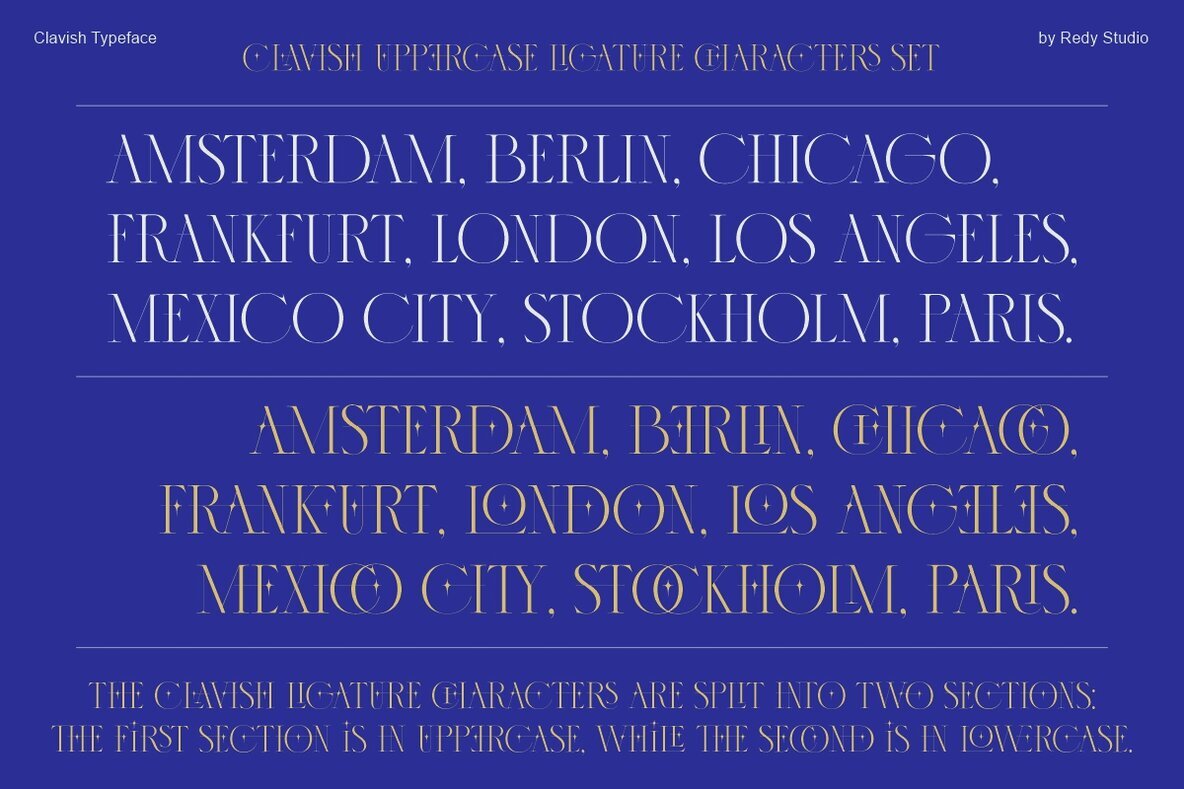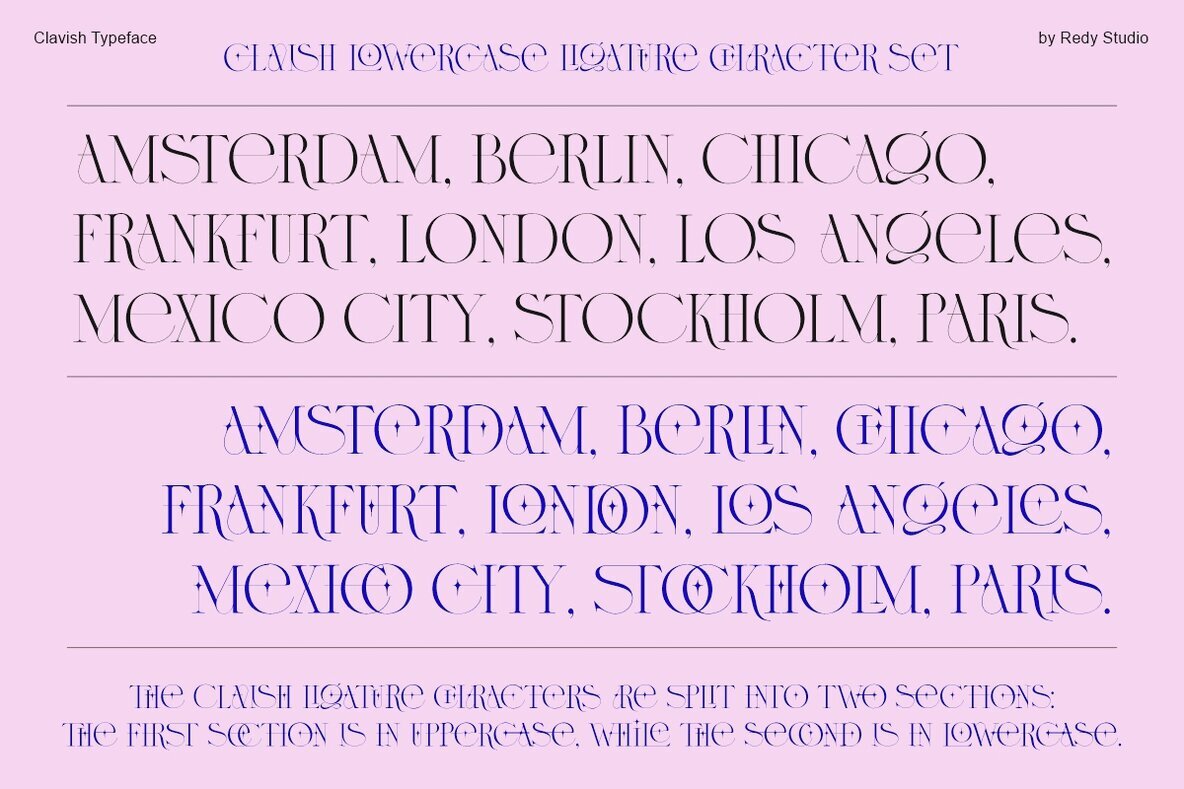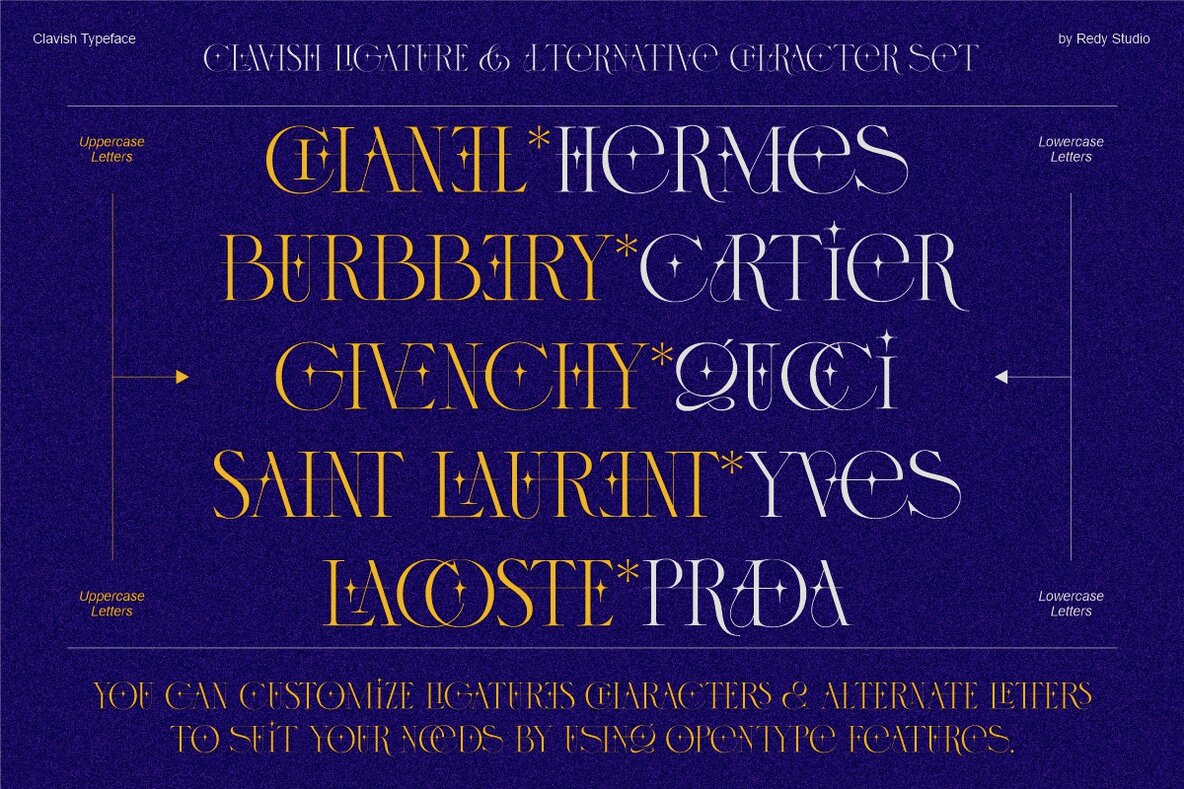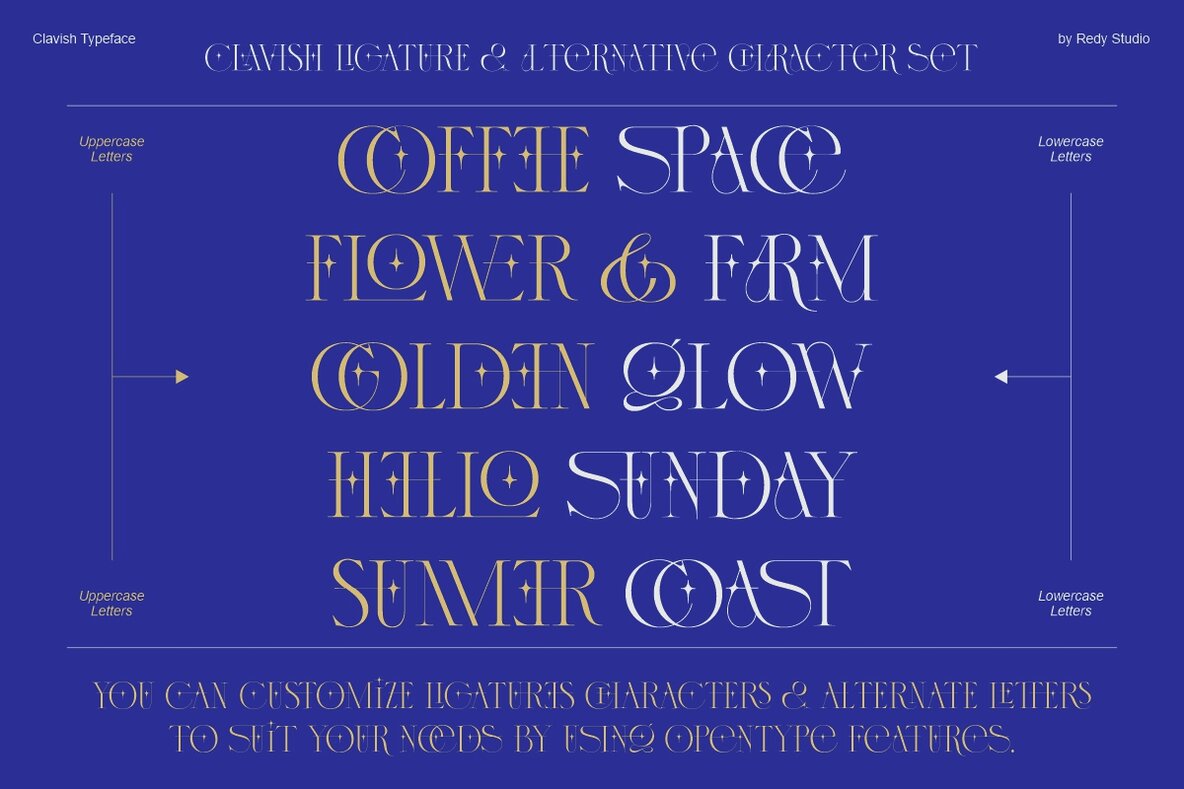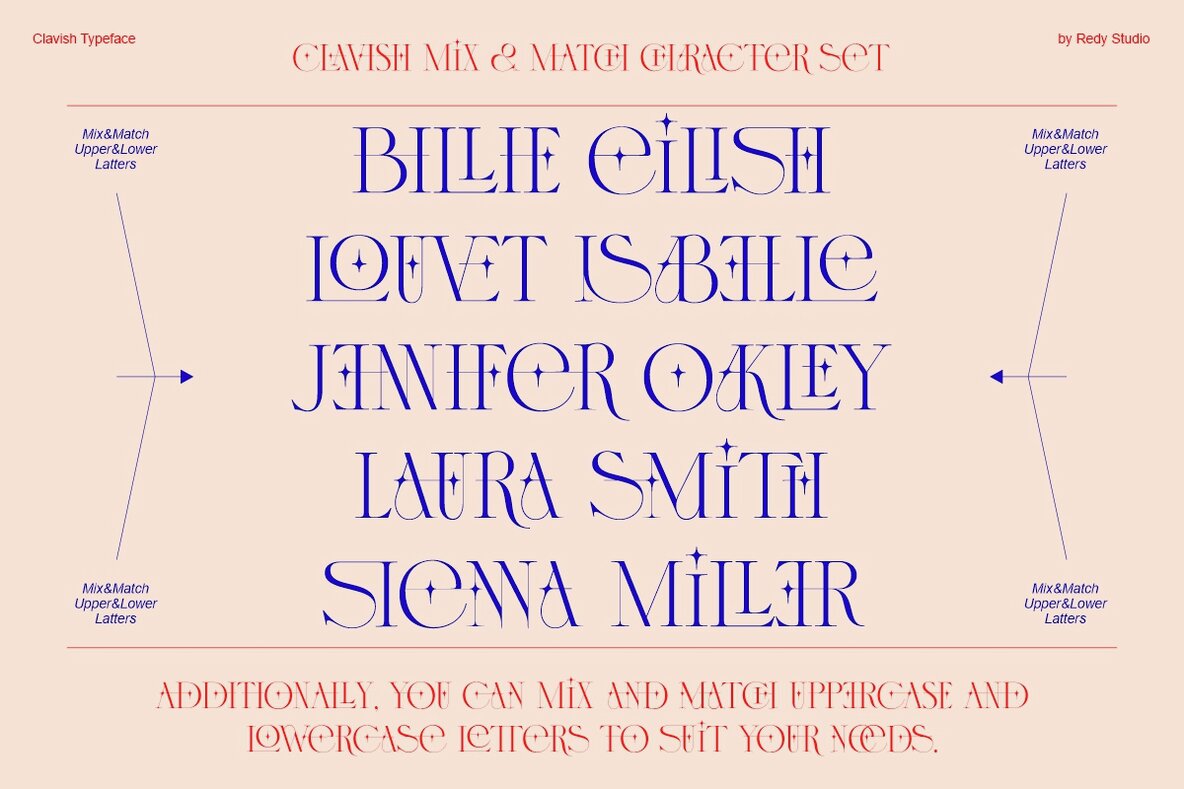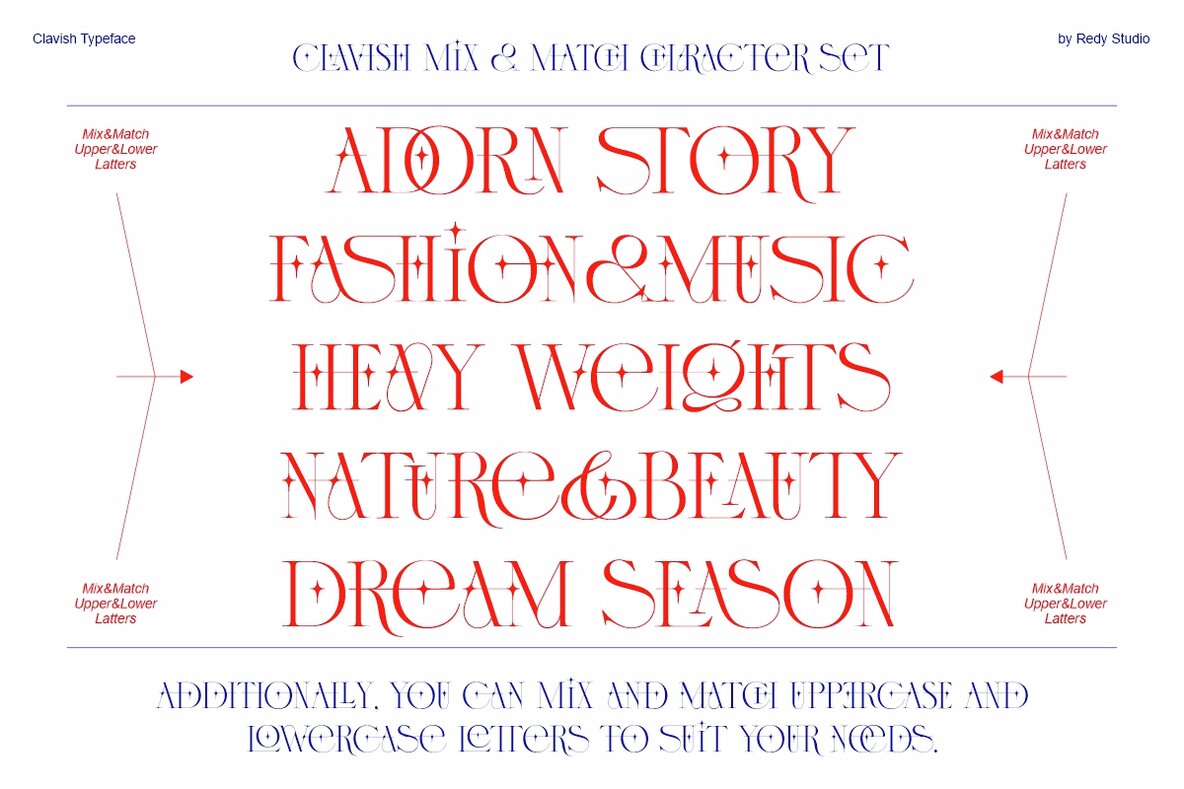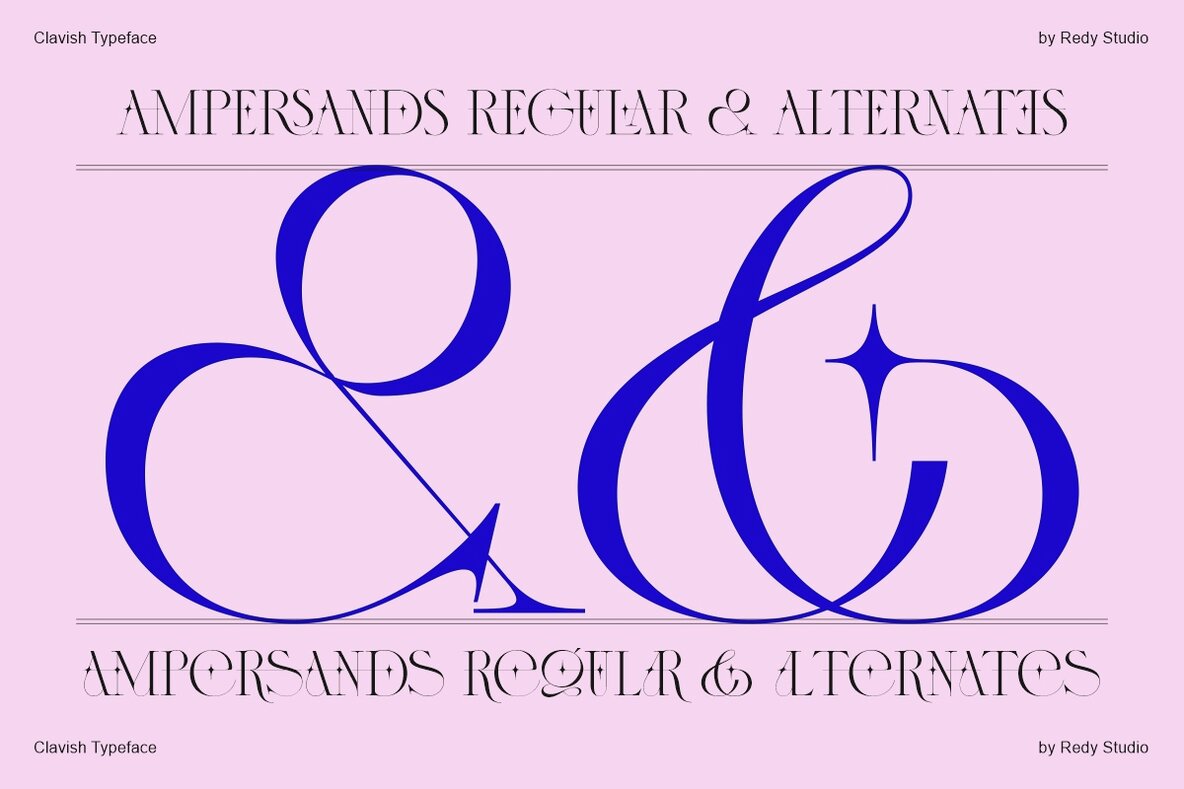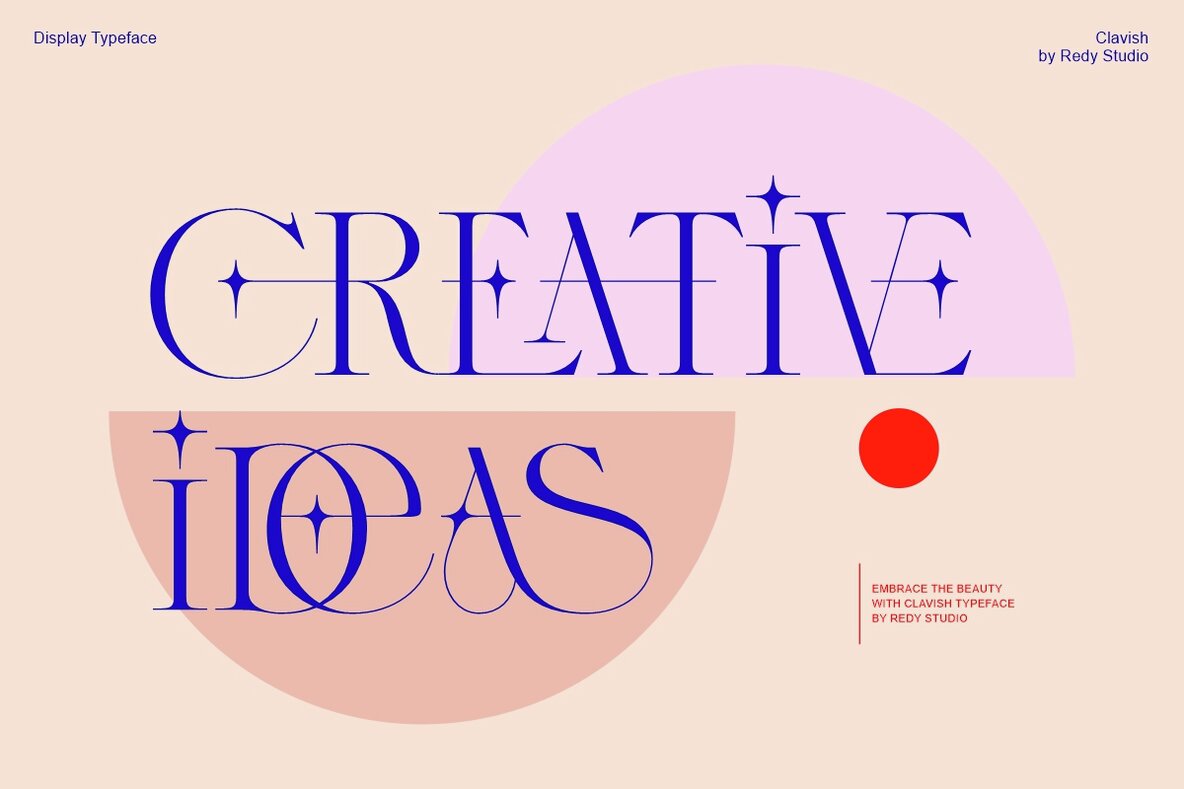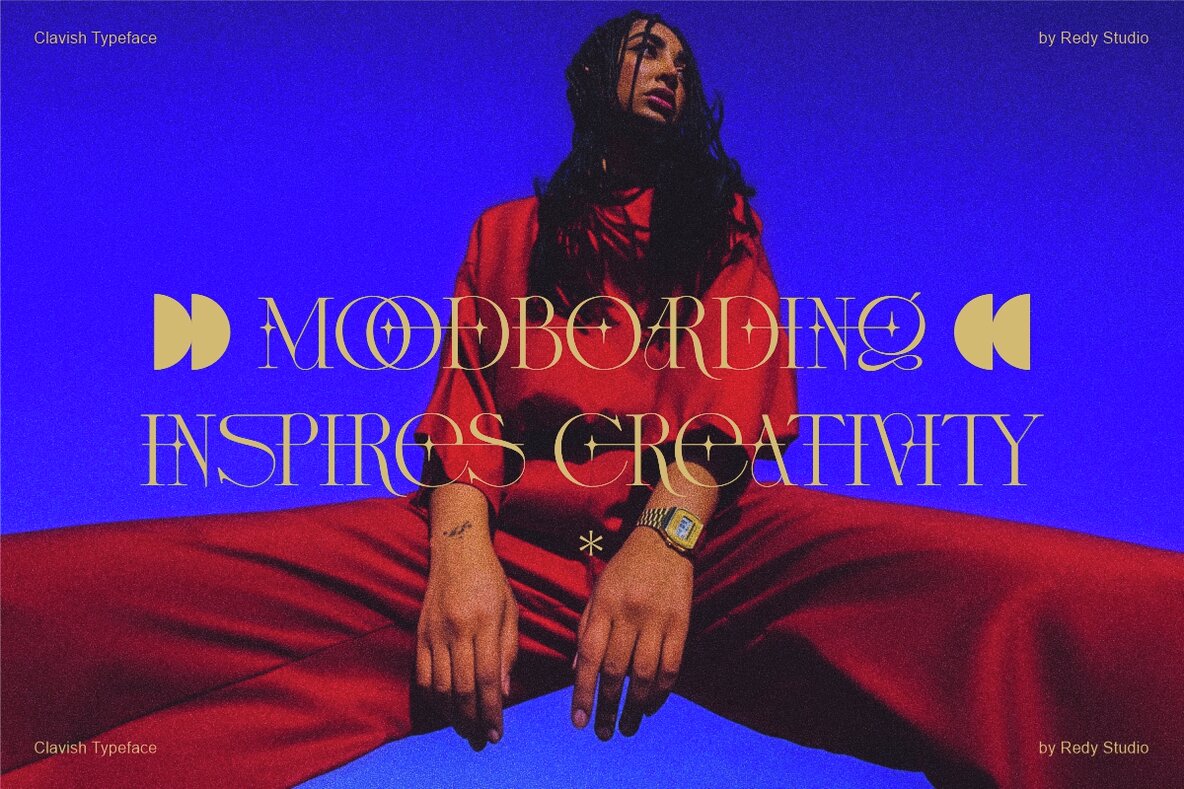
Clavish Font
Clavish Regular
Embrace the beauty with Clavish Display Typeface comes with alternate glyphs & 400+ Unique Ligatures. Clavish ligature characters are divided into two parts: the first part uses capital letters, while the second part uses lowercase letters. You can also customize ligature characters & alternate letters according to your needs by using the opentype feature. By adjusting the letter spacing, you can achieve a refined and elegant typography style, perfect for various design needs. The combination of uppercase and lowercase ligatures, along with the 400+ Ligature options provided by the OpenType feature, ensures that Clavish is versatile enough for various design applications. From branding projects to editorial layouts, this font offers the perfect blend of elegance and functionality. Its clean lines and adaptable features make it suitable for high-end designs as well as creative. FEATURES: